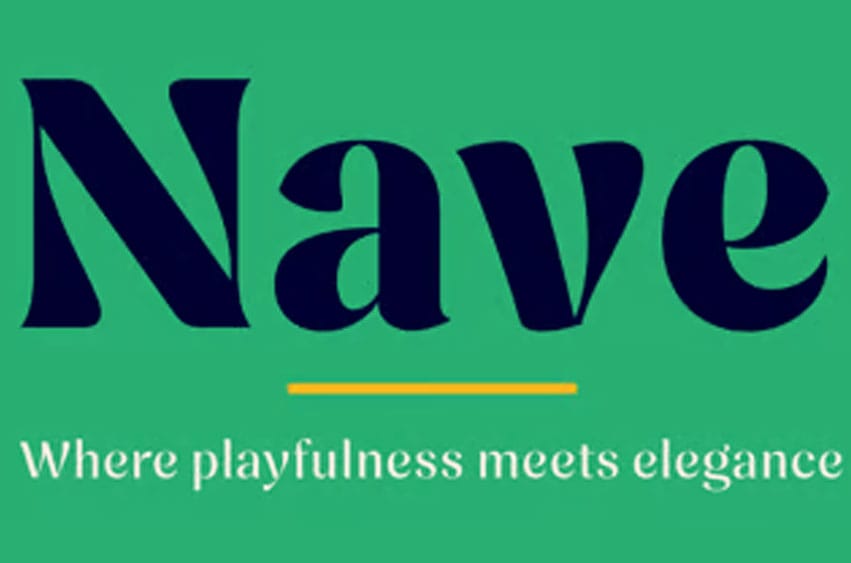
Nave Font is the perfect choice for designers looking to intertwine tradition with creativity. Its characters are framed by a formal, rigid outer shape, revealing an unexpected twist: a flowing, sensuous inner form. These contrasting qualities breathe life into words, inviting readers on a journey from the familiar to the extraordinary.
Nave is designed for forward-thinking designers and businesses who value classic design but also want to infuse their work with personality and warmth.